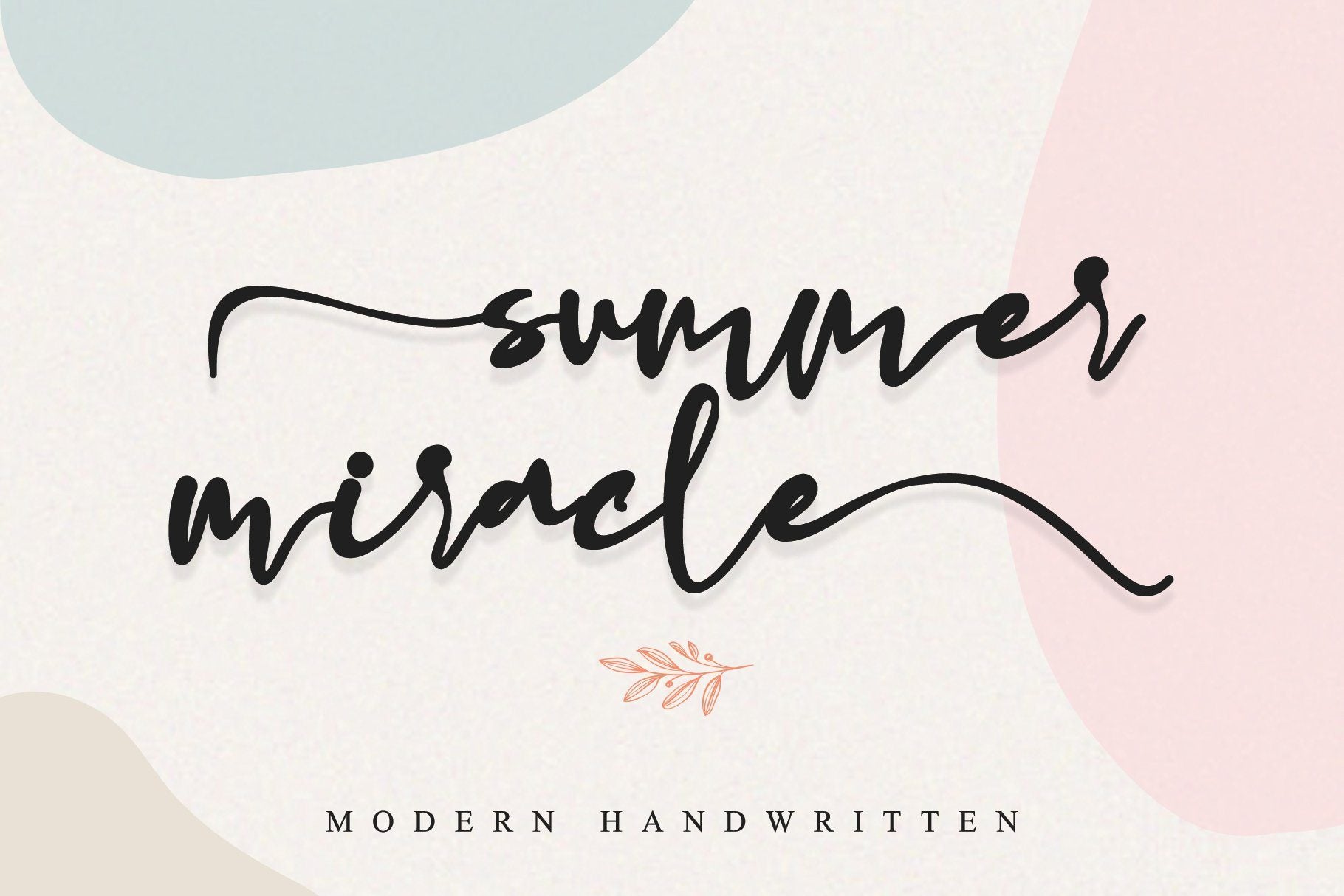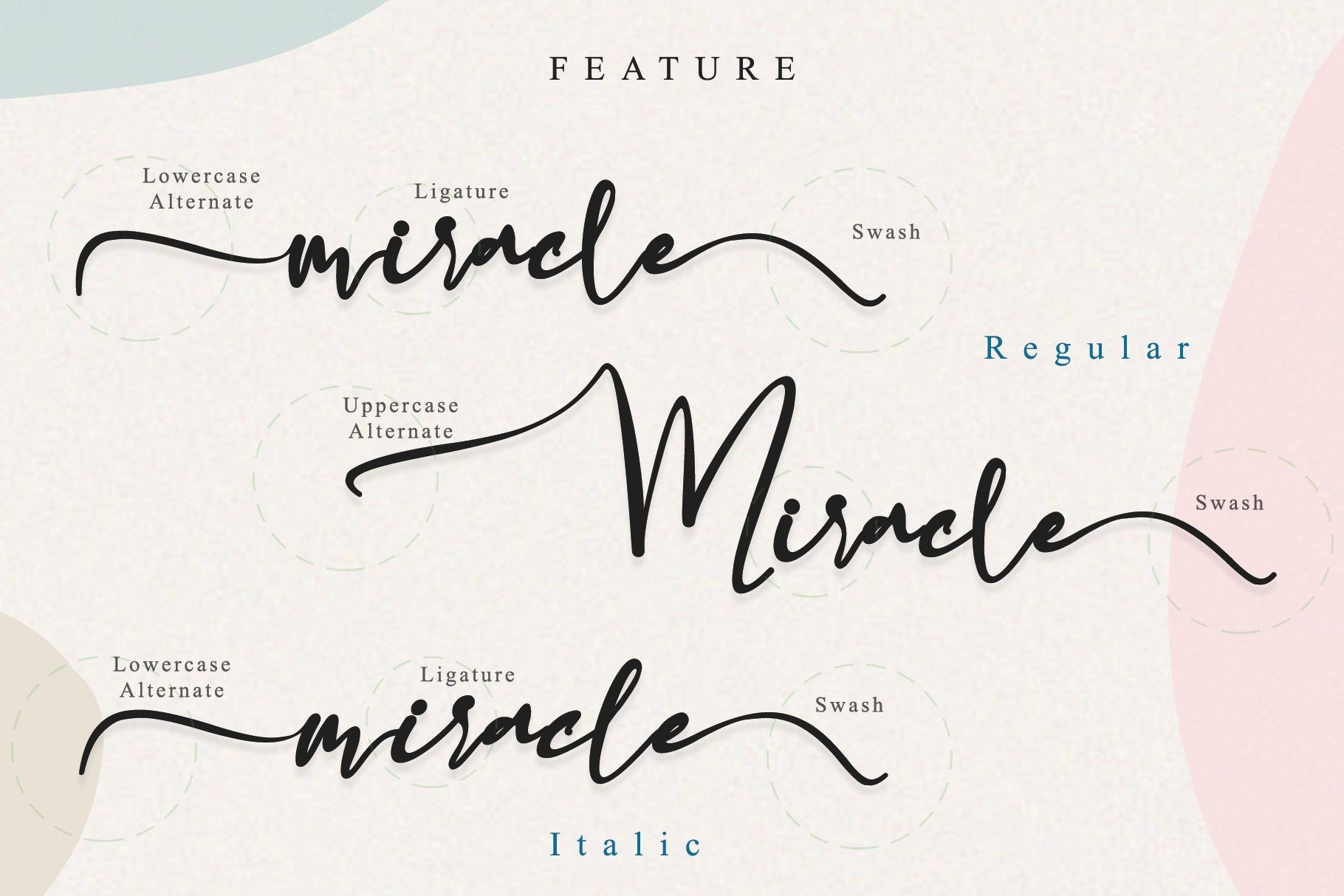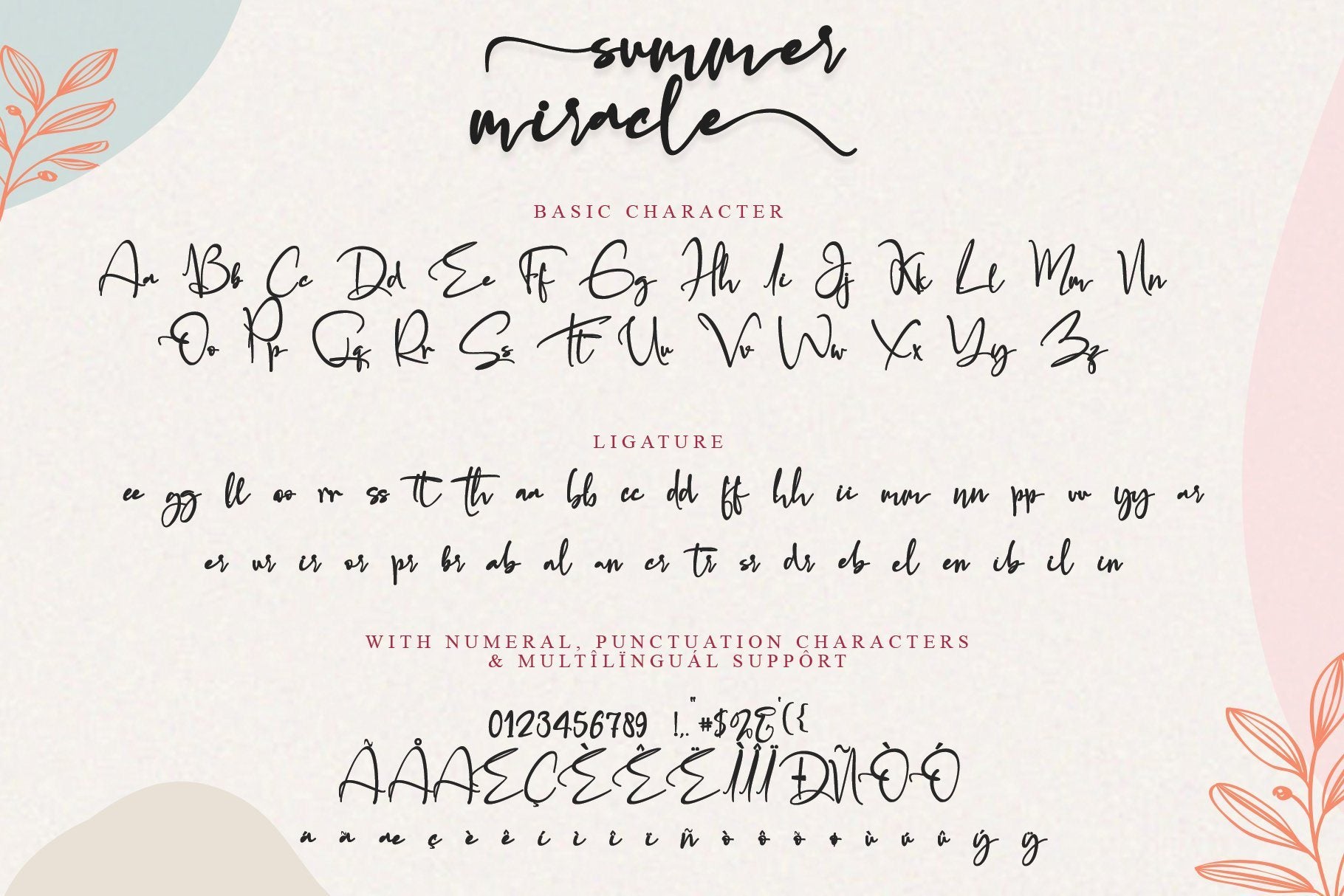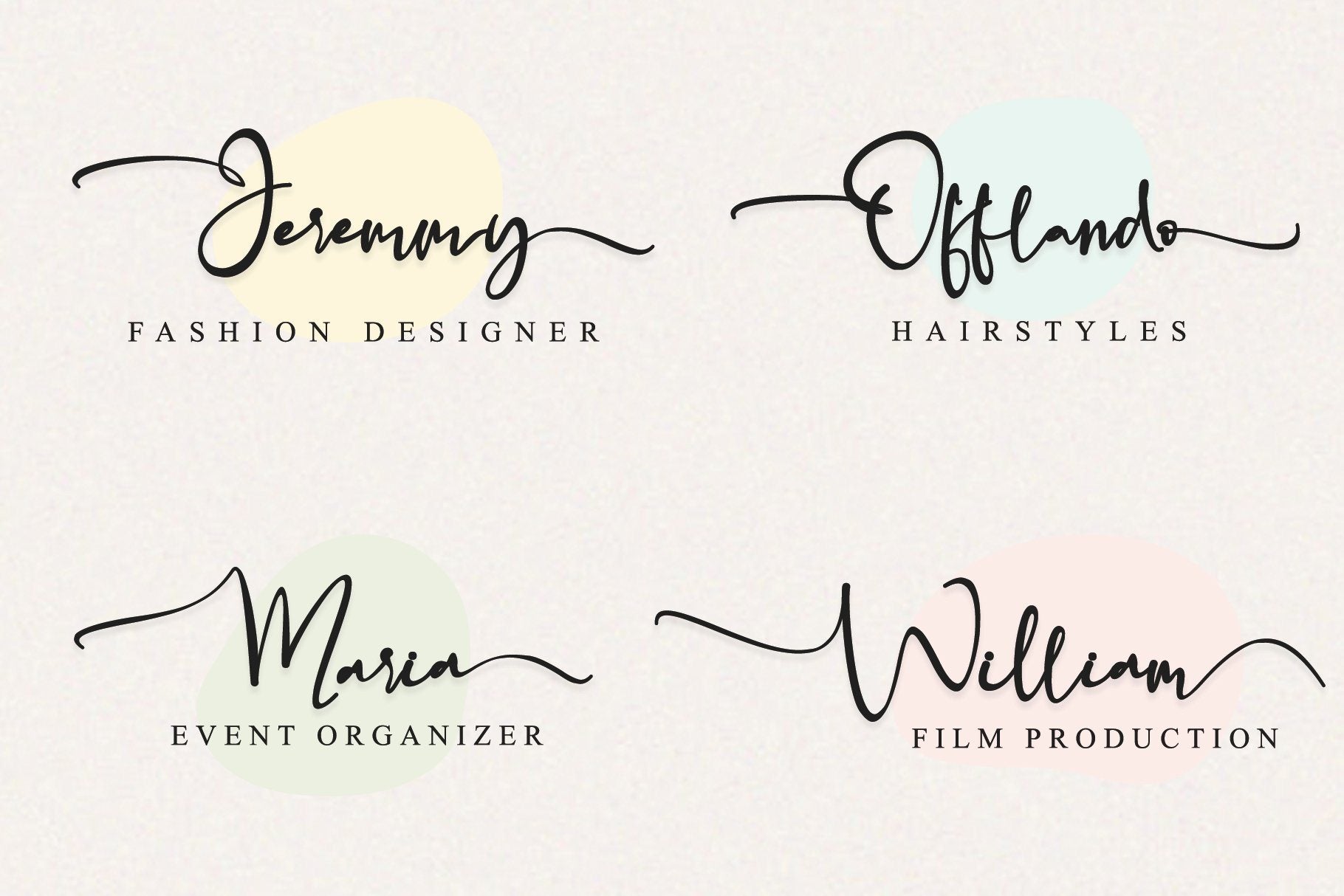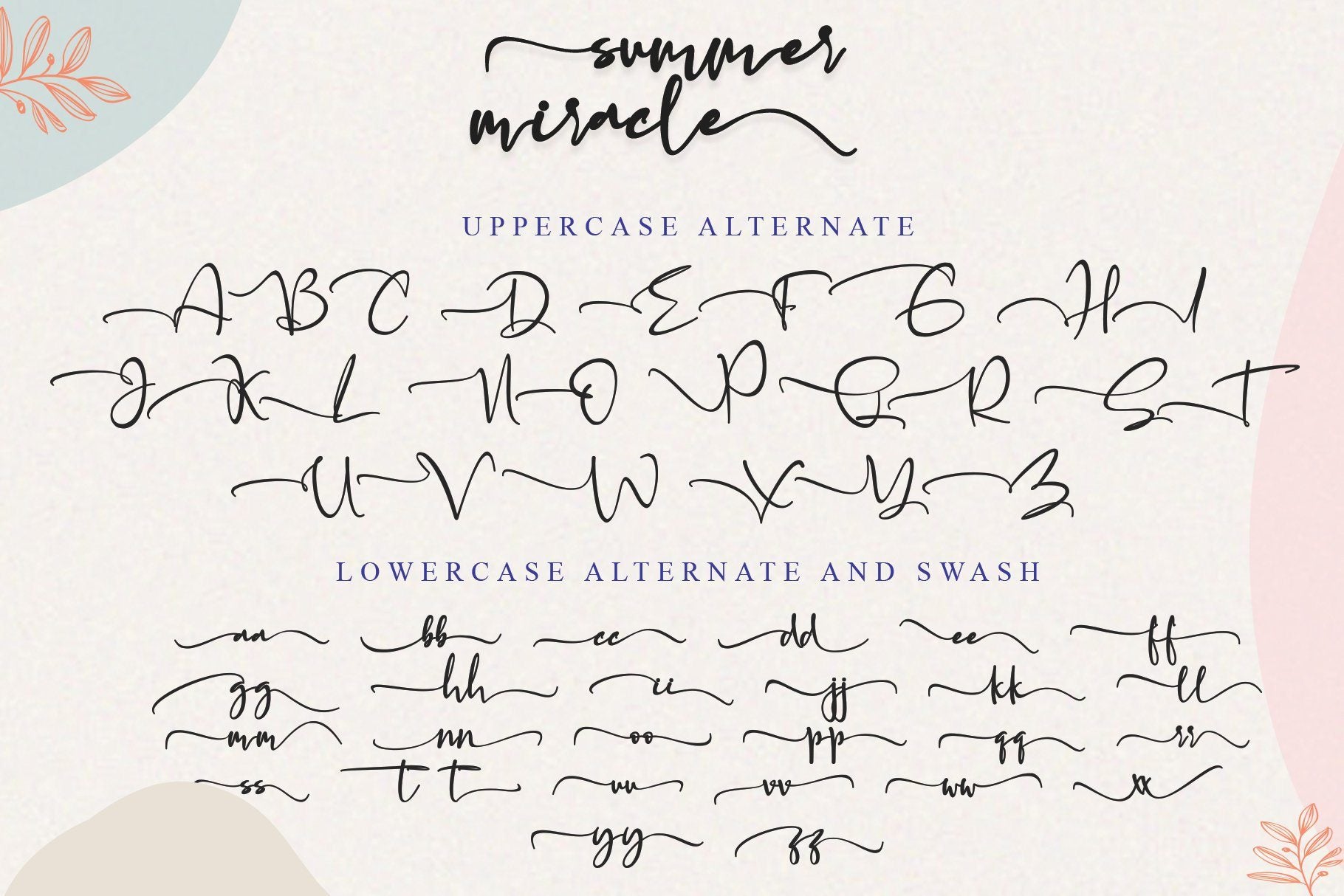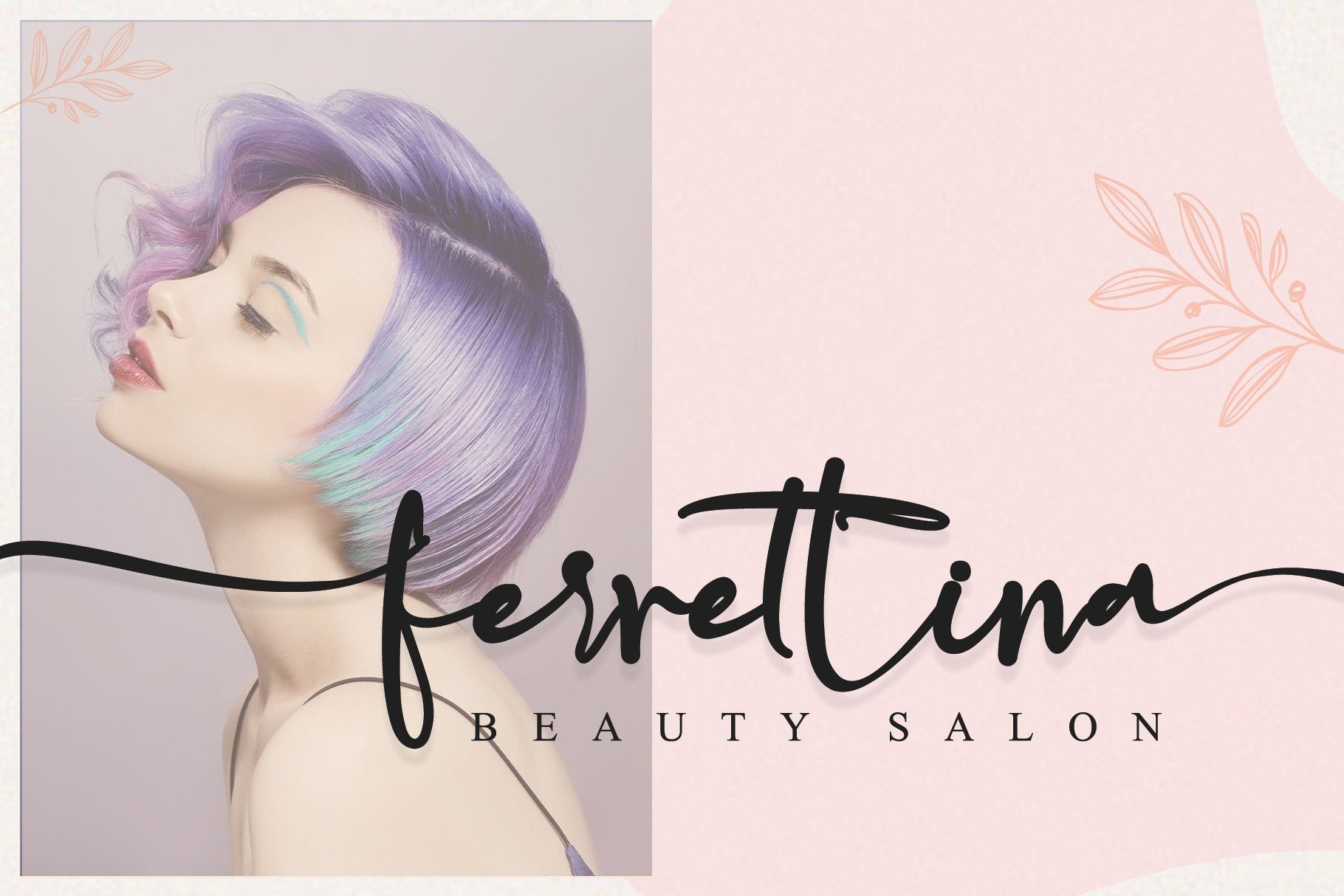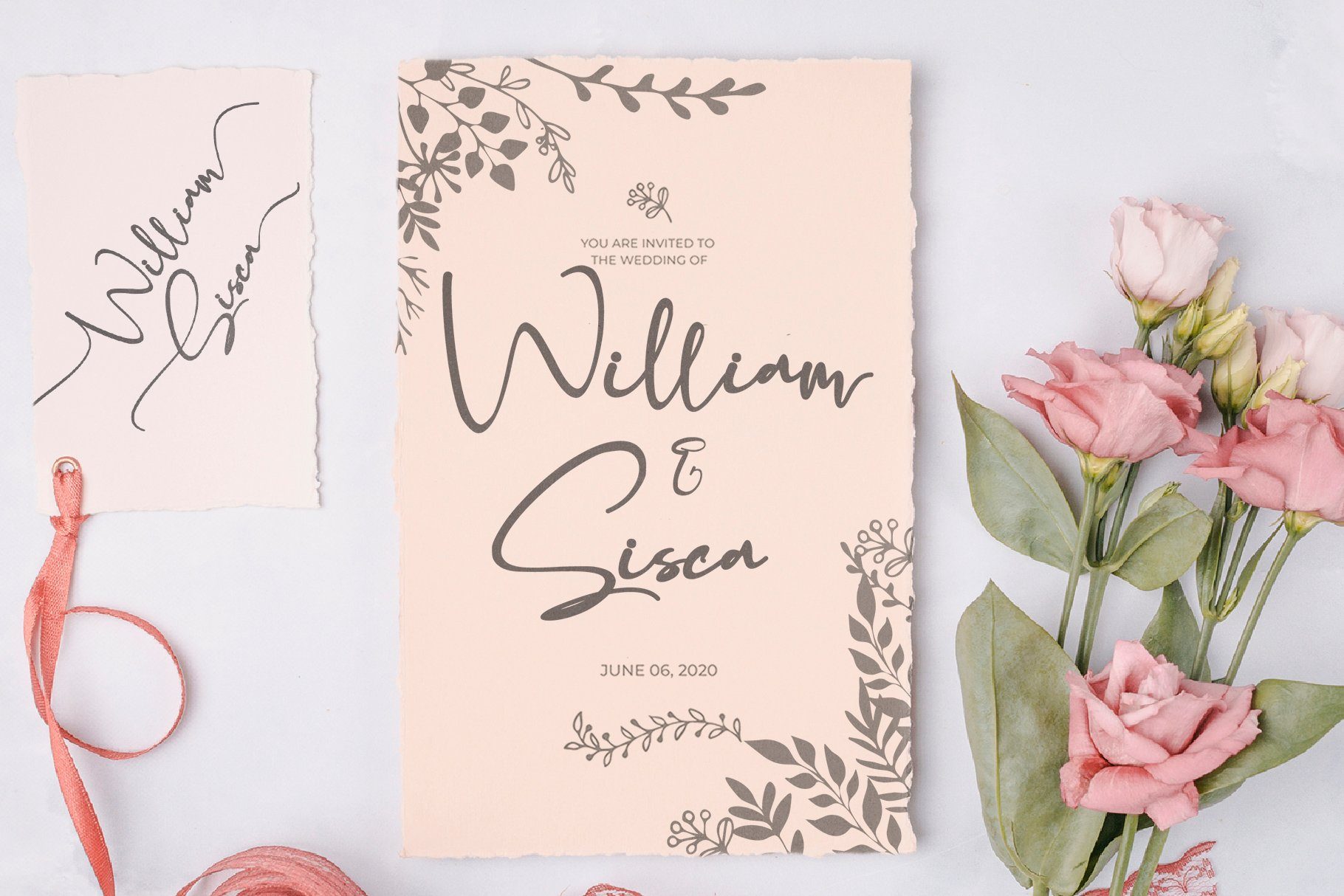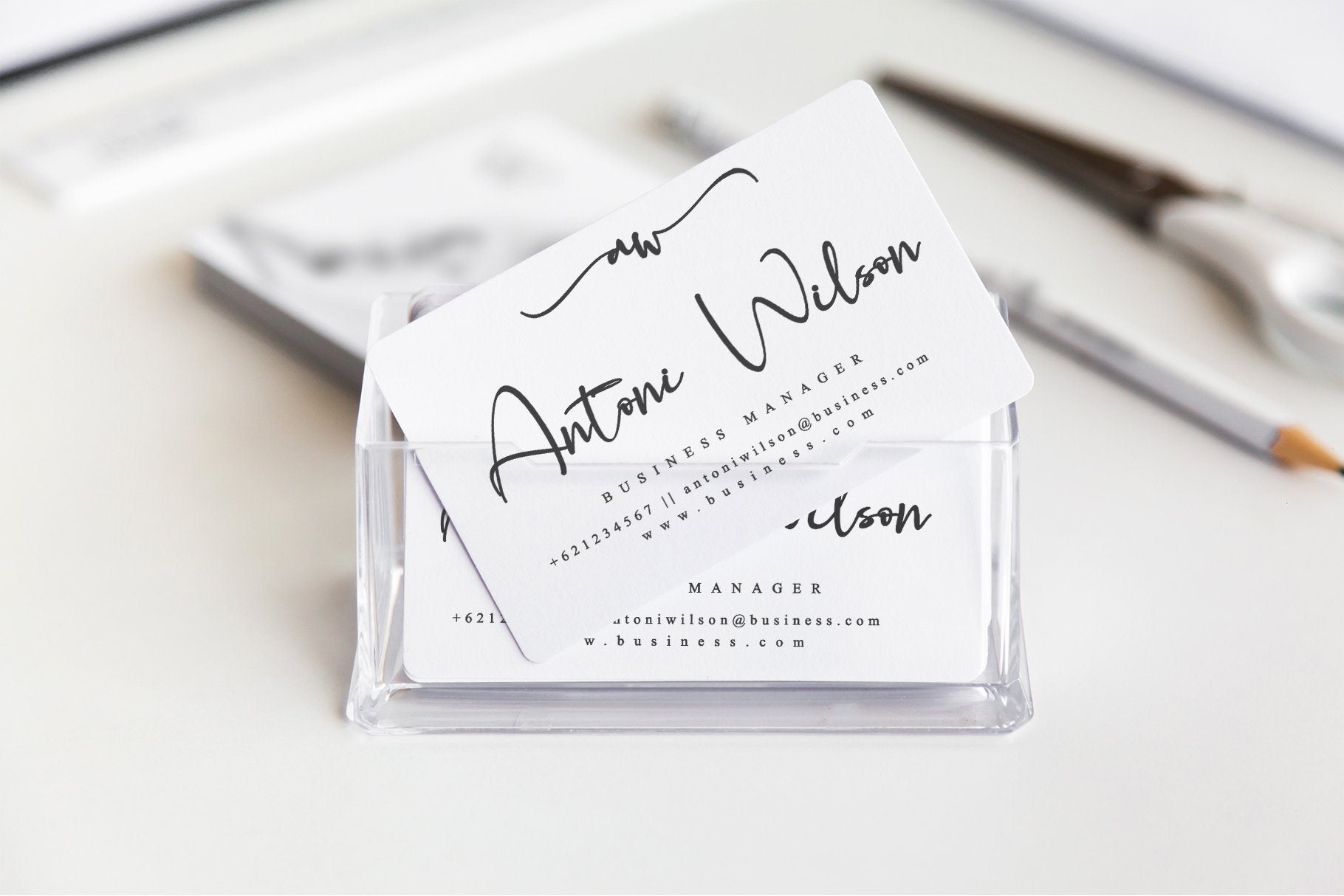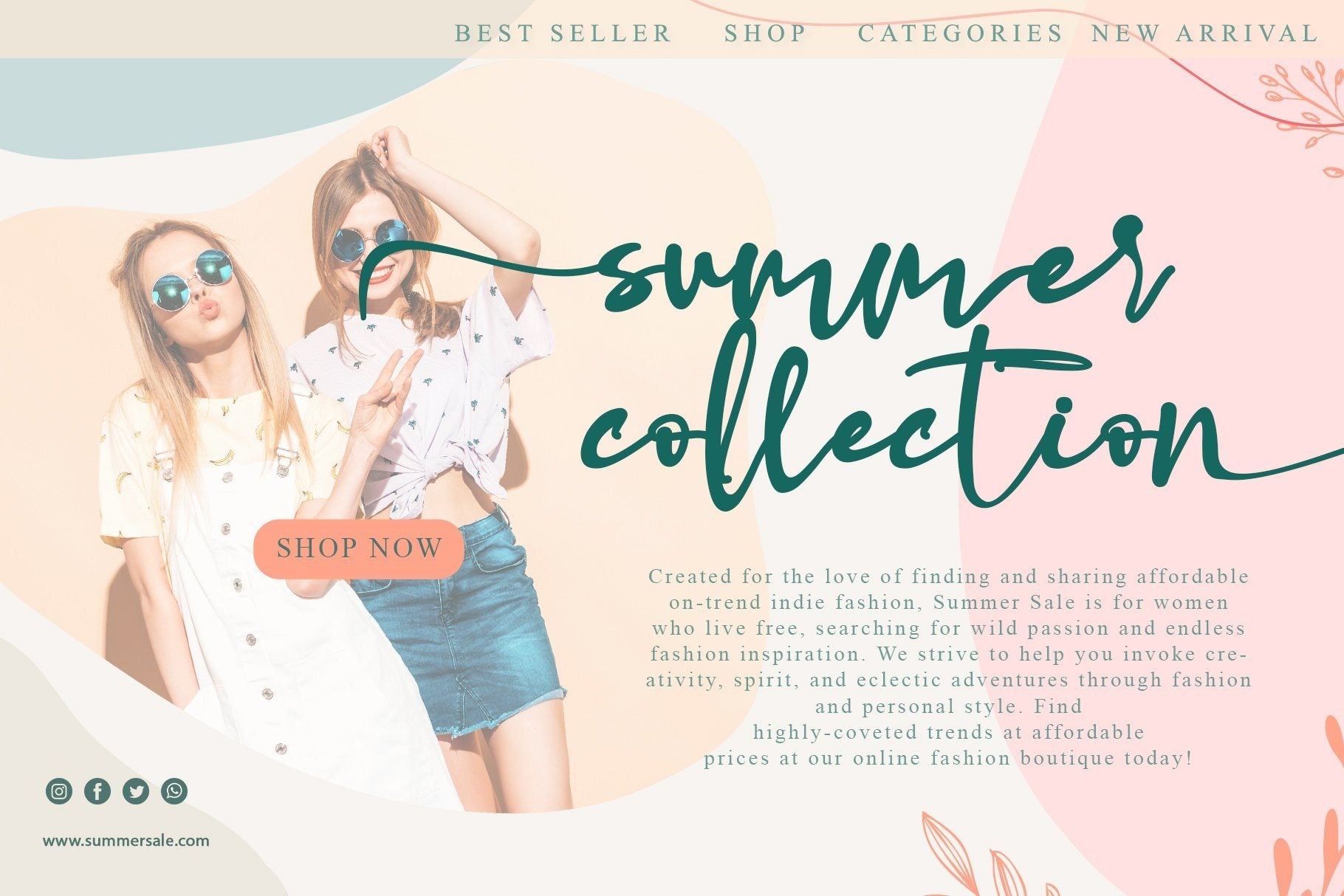
SUMMER MIRACLE
About SUMMER MIRACLE
summer miracle is an incredibly modern and sweet handwritten font that will turn any design idea into a true standout! summer miracle will turn any creative idea into a true piece of art! This font is PUA encoded which means you can access all of the amazing glyphs and swashes with ease! It also features a wealth of special features including alternate glyphs and ligatures. What’s Included : Summer miralce (TTF, OTF, WOFF) Summer miracle Italic(TTF, OTF, WOFF) Works both on Mac & PC Simple installations Support silhouette Many features: Uppercase Alternate, Lowercase Alternate, Swash and Ligature Accessible in the Adobe Illustrator, Adobe Photoshop, Adobe InDesign, CorelDraw, even work on Microsoft Word. Support multilingual; ä ö ü Ä Ö Ü ß ¿ ¡ To access the alternate glyphs, you need a program that supports OpenType features such as Adobe Illustrator CS, Adobe Photoshop CC, Adobe Indesign, and CorelDraw. More information about how to access alternate glyphs, check out this link  ( http://goo.gl/ZT7PqK ) This font is PUA encoded which means you can access all of the playful glyphs and swashes with ease! It also features a wealth of special features including alternate glyphs and ligatures. To stay up to date for my latest job, follow me and let’s be friends because there will be many promos.